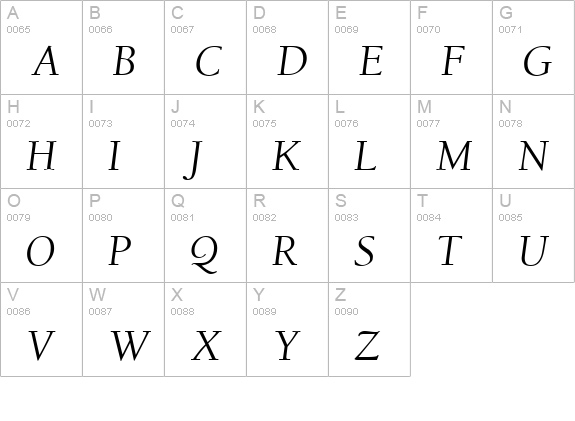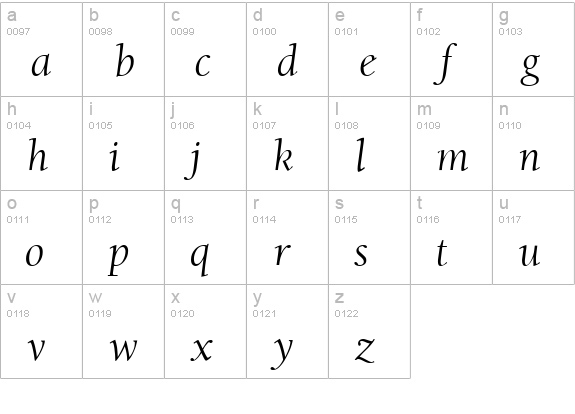
Berkeley Italic Font Details
Berkeley Italic is a distinctive, italic variant in the Berkeley typeface family \xE2\x80\x94 well suited to design and typography projects.
Berkeley Italic font exudes elegance and sophistication with its sleek and stylish design. The italicized letterforms carry a sense of modernity and flair, making this font a perfect choice for projects that require a touch of sophistication. The graceful slant of the letters adds a sense of movement and dynamism to any text, making it visually appealing and engaging to the reader. What sets Berkeley Italic font apart is not only its aesthetic appeal but also its versatility. Whether used in branding, editorial design, or web content, this font effortlessly elevates the overall look and feel of any project. Its clean lines and balanced proportions make it easy to read, ensuring clarity and readability across various mediums. Best of all, Berkeley Italic font is available for free download at FontsMarket.com. This means that you can easily access this stunning font and incorporate it into your designs without any cost. Don't miss out on the opportunity to enhance your projects with the timeless elegance of Berkeley Italic font. Download it today and see the difference it can make in your creative endeavors.